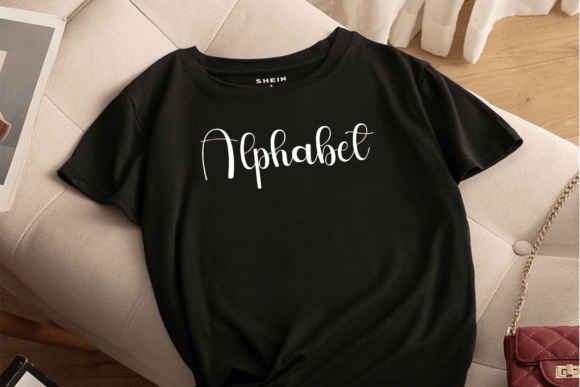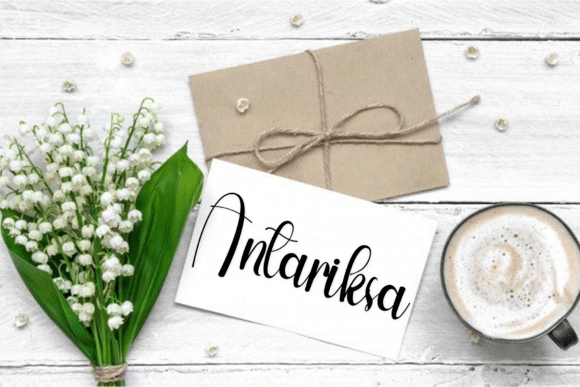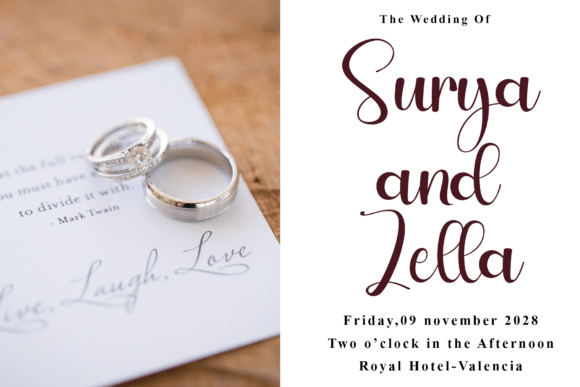
Introduction to Pumpkin December Font
As the crisp autumn air sets in, many creatives find themselves inspired to craft the perfect seasonal design. Whether it’s a holiday marketing campaign or a cozy food blog, there’s something about the Pumpkin December Font that evokes a sense of sophistication and warmth.
For designers seeking a high-quality, free download to elevate their creative project, the Pumpkin December Font is an absolute gem. Its unique blend of high-contrast strokes, thick downstrokes, and delicate hairline connectors creates a truly one-of-a-kind visual voice that’s perfect for autumnal themes.
With its vertically elongated letterforms and looping ascenders, this font is a versatile design resource that can be used for everything from boutique event invitations to sophisticated editorial headers – and it’s available for download with a transparent background, making it a valuable asset for any creative project.
Pumpkin December Font Key Features
- Unique and Creative Design: The Pumpkin December Font is a high-quality, unique design resource ideal for creative projects that require a festive and seasonal touch.
- Perfect for Seasonal Projects: This font is specifically designed for seasonal and holiday-themed projects, making it an excellent choice for Christmas, Halloween, and Thanksgiving designs.
Honest Review: Pumpkin December Font
I recently had the opportunity to work with the Pumpkin December Font, and I must say it’s been a delightful experience. This font is perfect for any creative project that requires a touch of whimsy and elegance.
One of the standout features of the Pumpkin December Font is its versatility. It can be used for a variety of projects, from digital designs to print materials. The font’s high-quality design ensures that it will look great in any format.
- ⚠️ Limited character set, which may not be suitable for lengthy text-based projects
- ⚠️ May require additional formatting to achieve desired aesthetic
Overall, I’m impressed with the Pumpkin December Font. Its high-quality design, free download option, and transparent background make it an excellent design resource for any creative project. While it may have some limitations, it’s still a great choice for designers looking for a unique and elegant font.
Use the Pumpkin December Font with a transparent background to create a high-quality design. Experiment with different font sizes and styles to add visual interest to your project. This font is ideal for creating festive designs, invitations, and social media graphics.
The Pumpkin December Font is perfect for:
- Creative projects related to autumn, winter, or holiday themes.
- Designing invitations, greeting cards, and party decorations.
- Creating social media graphics and promotional materials for seasonal events.